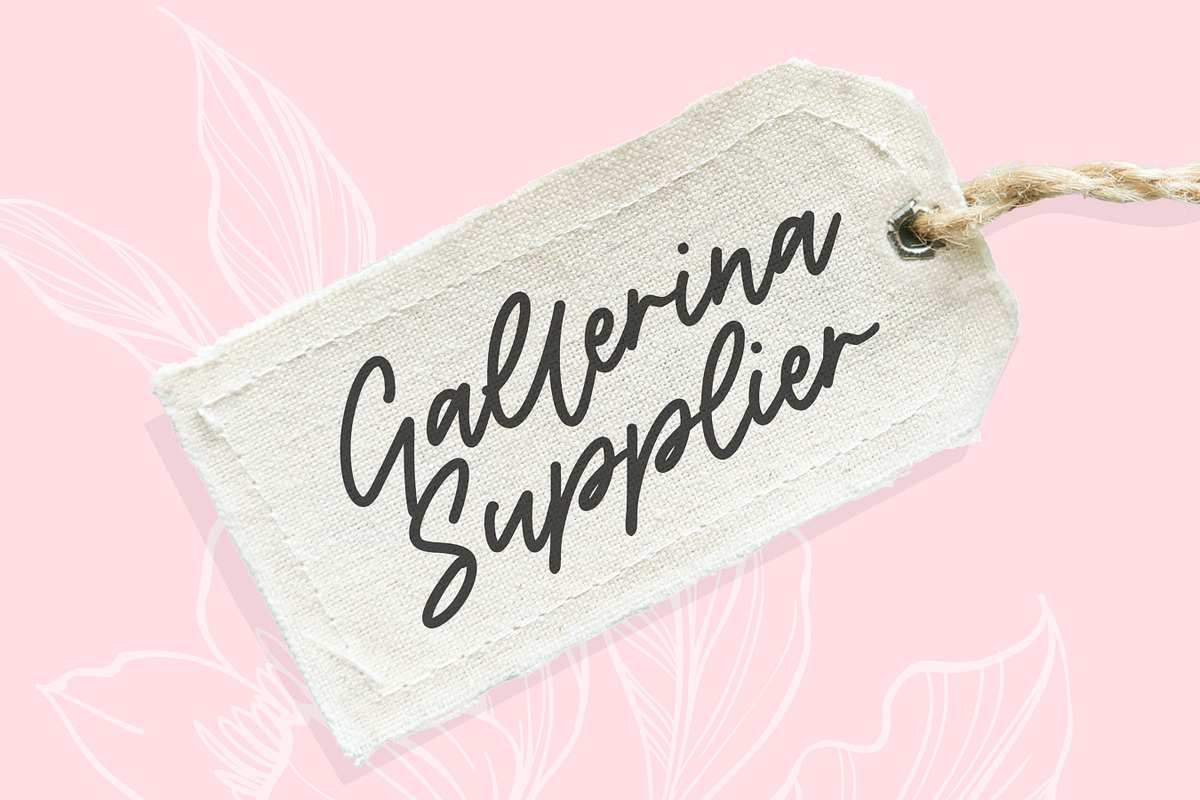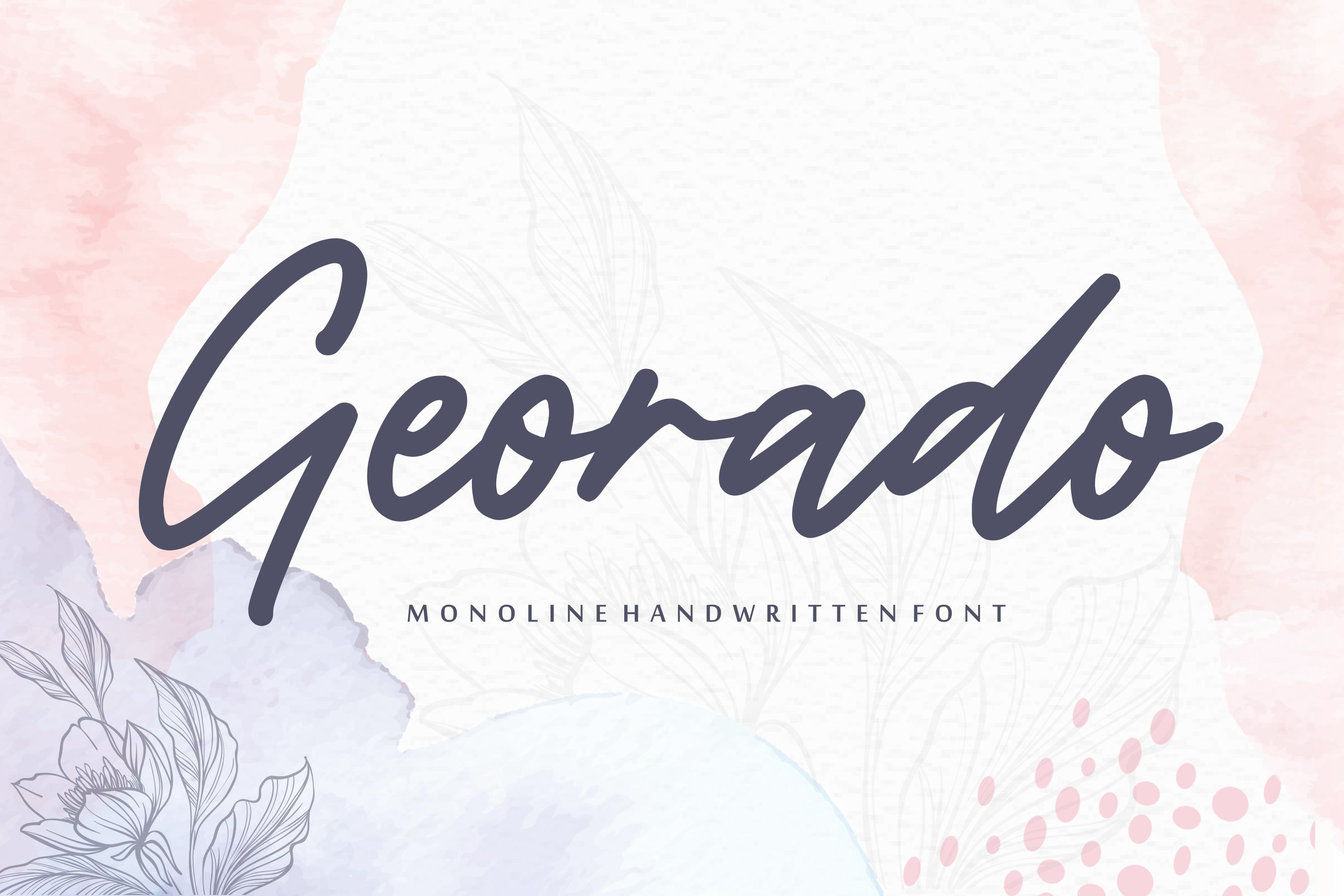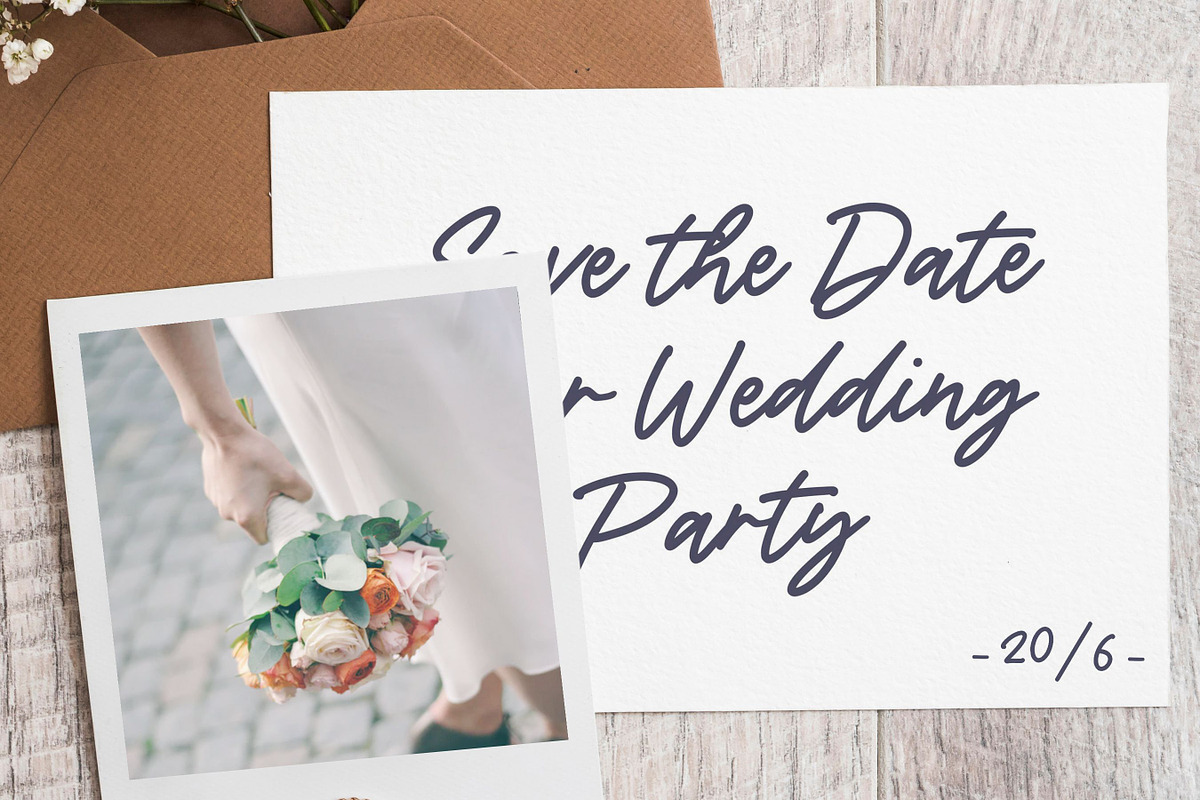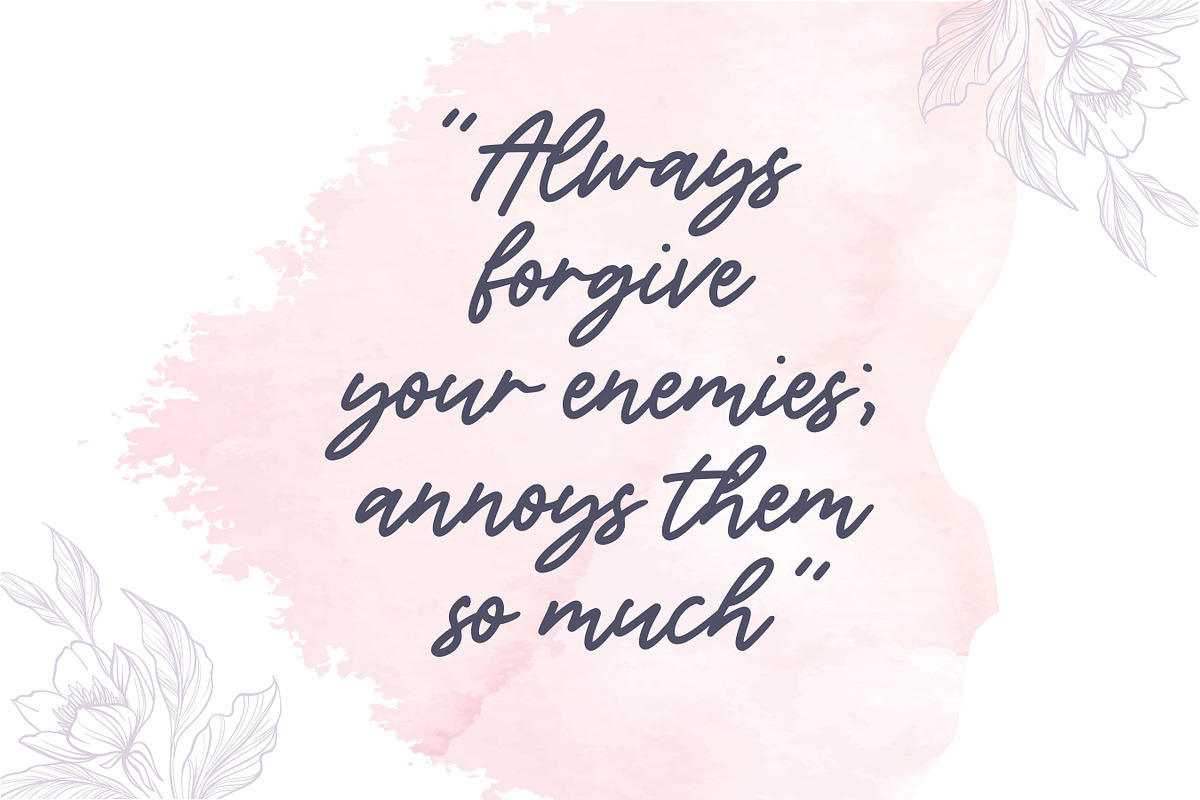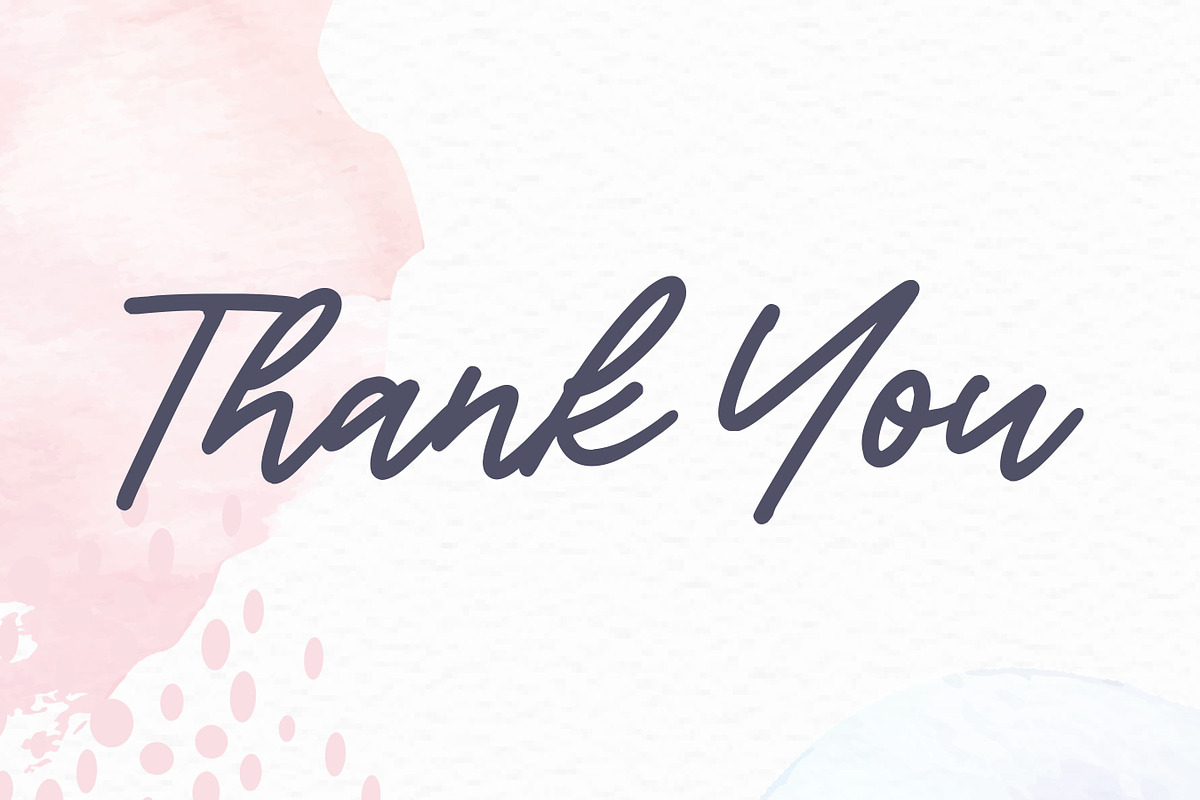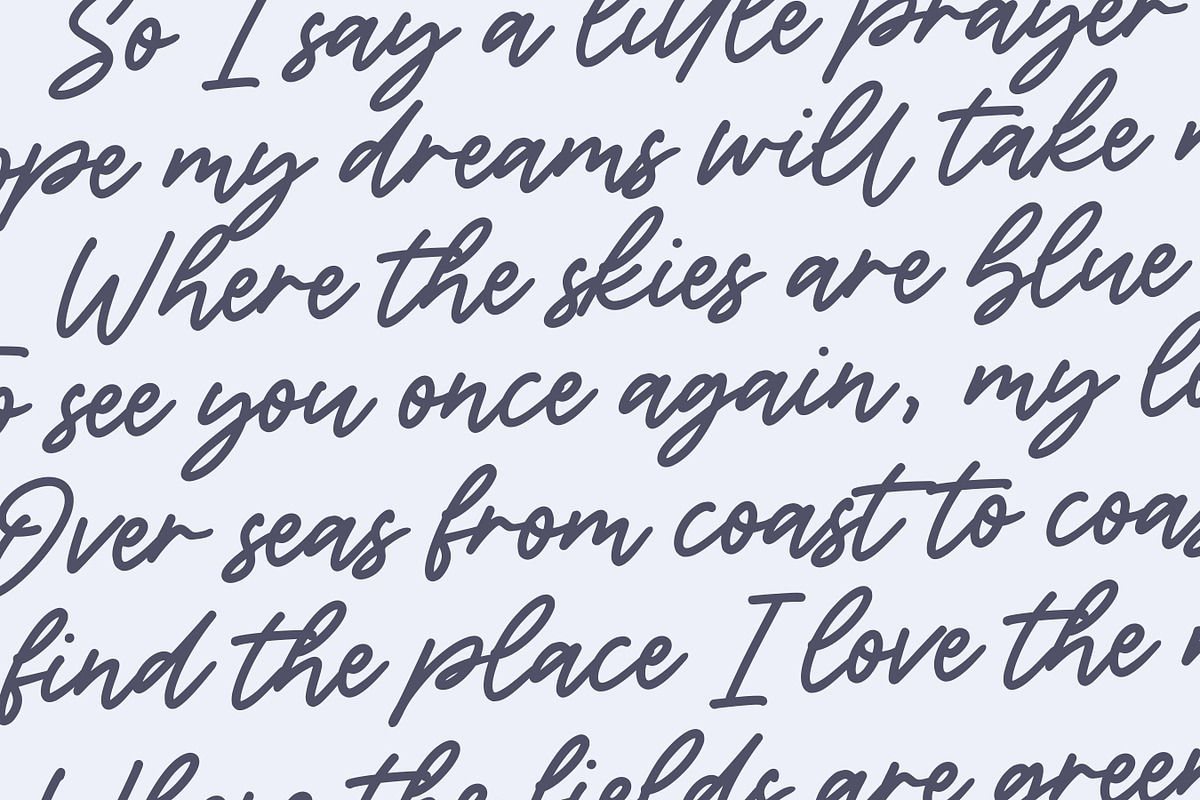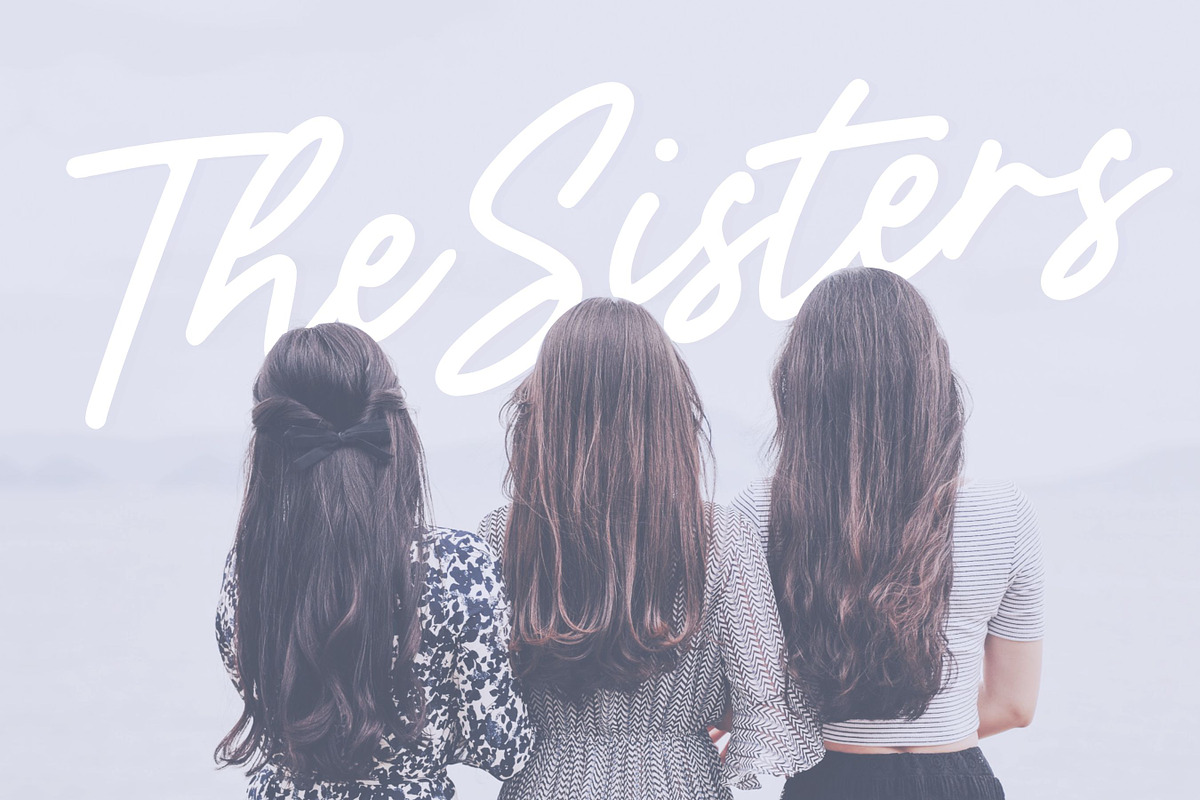
Georado - Monoline Handwritten Font
Proudly Present, Georado Font
Georado is a sweet and friendly handwritten font. Its natural and unique style makes it incredibly fitting to a large pool of designs. The only limit is your imagination!